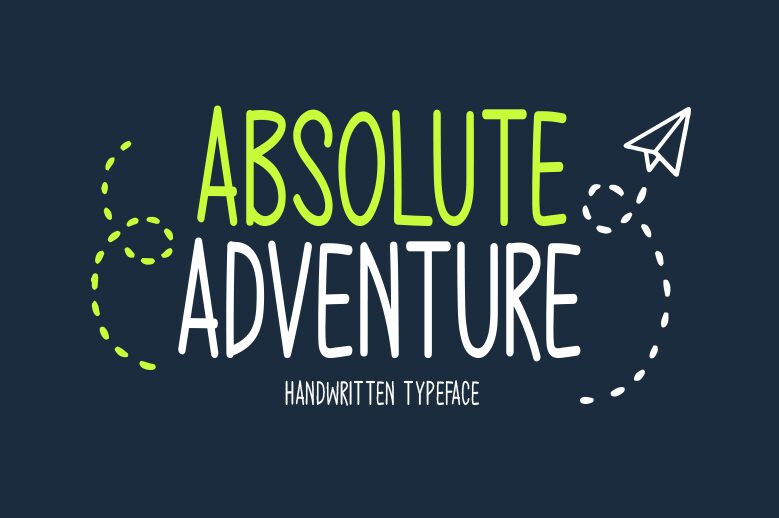
Absolute Adventure captures the spirit of exploration through its playful, handwritten aesthetic. The font exudes a vibrant and dynamic charm, inviting creativity in every stroke. With its condensed form, it boldly conveys messages while maintaining an air of elegance and spontaneity.
This delightful typeface is perfect for a range of design contexts-from travel blogs and adventure-themed marketing materials to inspirational quotes on social media. Its unique character adds warmth and personality, making it ideal for projects that seek to inspire adventure and evoke emotion. Absolute Adventure invites viewers to embark on a journey of imagination with every letter crafted beautifully by Md Shohail Bhuian.